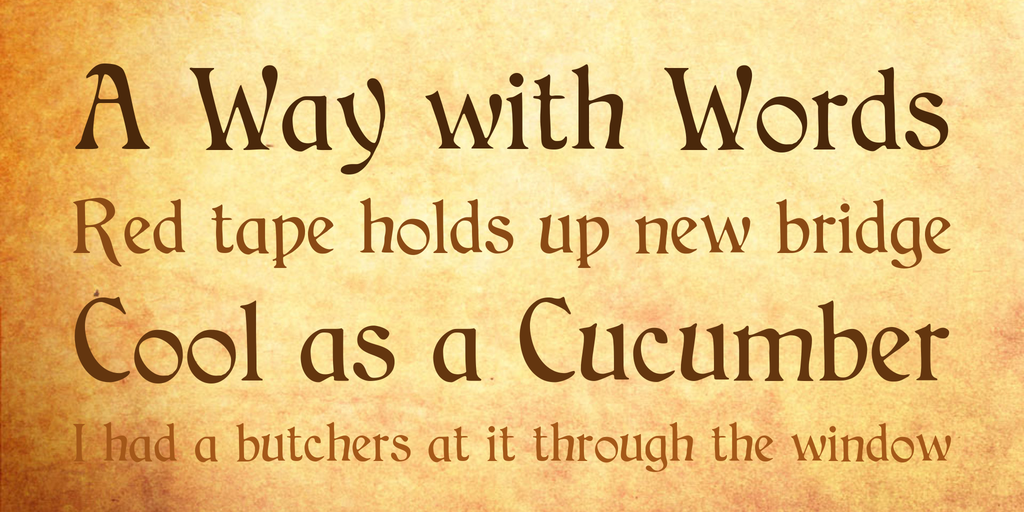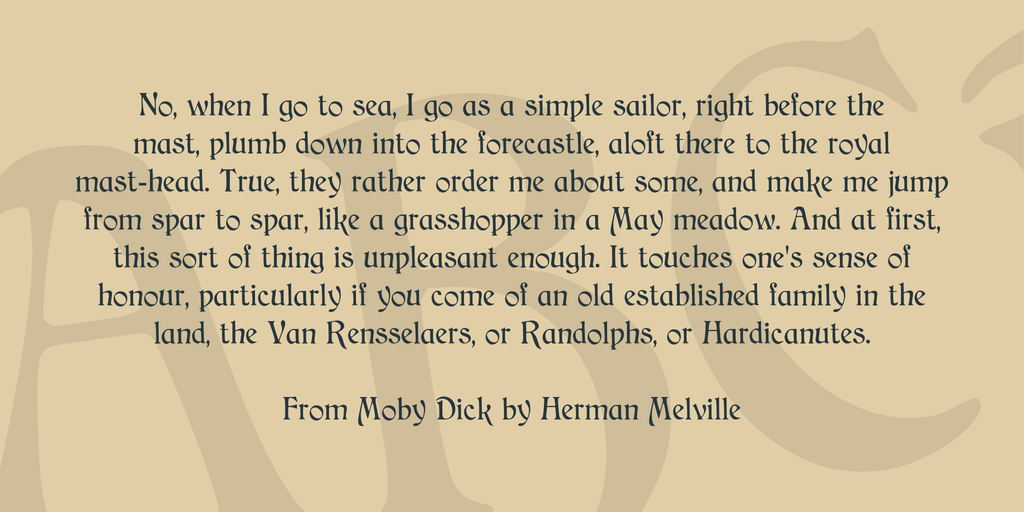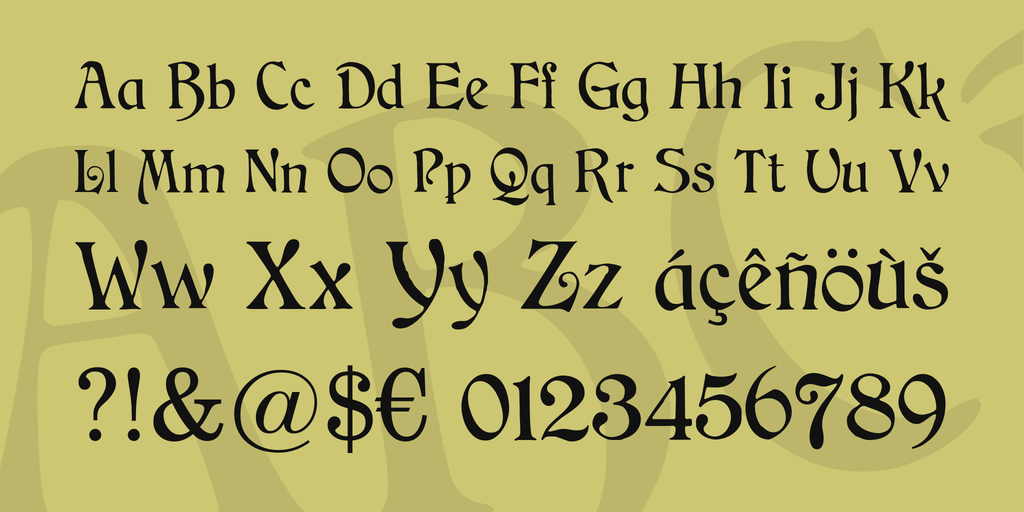
Cat Childs is another font that I have digitized relatively quickly based on an old sample and using automatic vectorization. Nevertheless, I’ve tried to form the font manually as clean and close as possible to the original. Have fun with this Art Nouveau font from America! Please donate if you like the font!